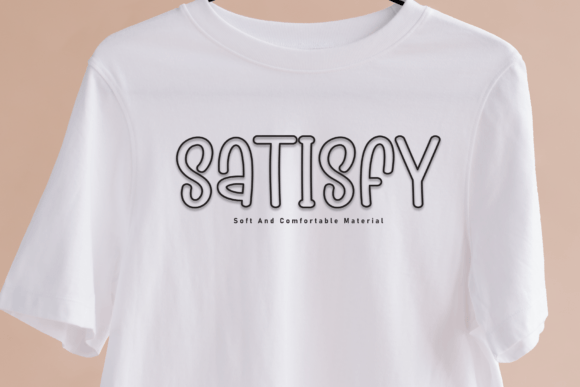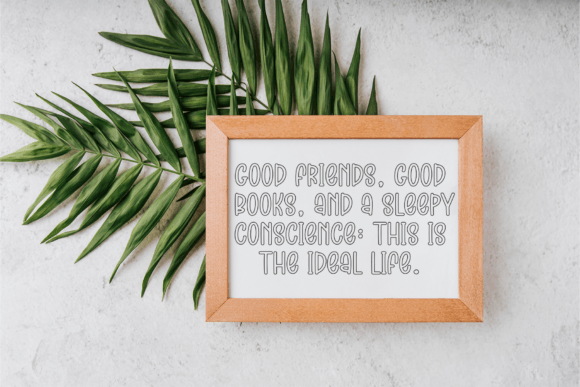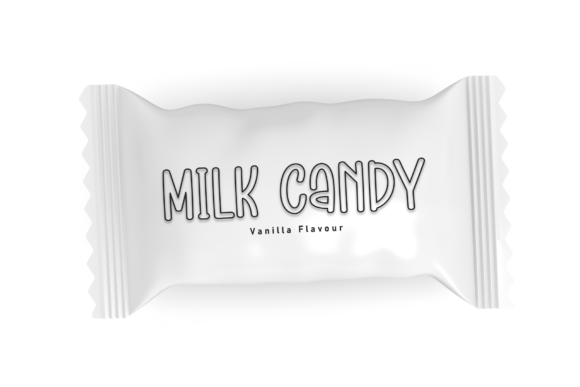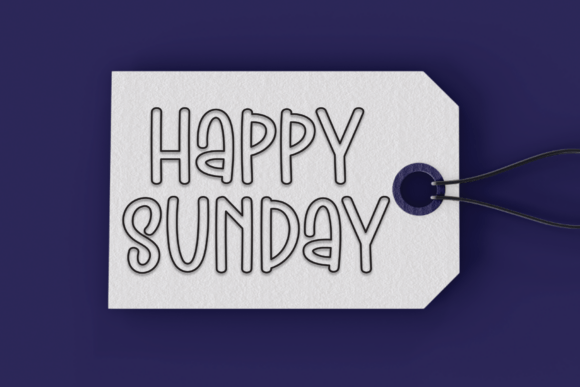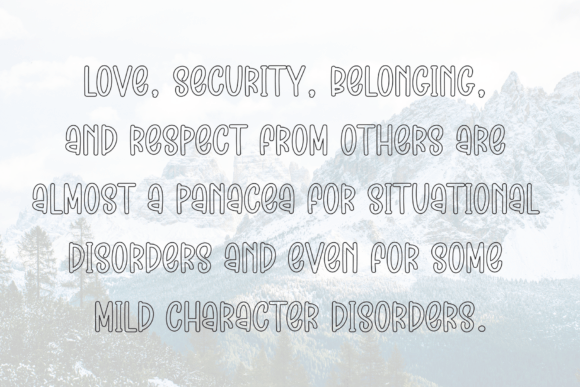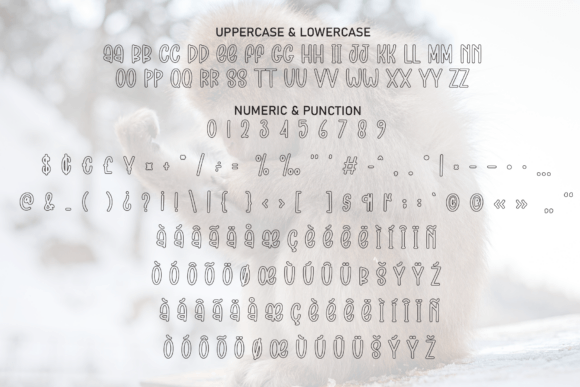
Introducing Chunky Monkey Font: The Playful and Charming Handwritten Display Font
Are you tired of using the same old fonts for your design projects? Look no further! We’re excited to introduce Chunky Monkey Font, a charming and warm handwritten display font that’s sure to add a personal touch to your creations. With its adorable and playful flare, this font is perfect for crafting elegant wedding invitations, heartfelt cards, or any design project that requires a sprinkle of fun.
A Font that Speaks to Your Creative Side
Chunky Monkey Font is designed to bring a sense of joy and lightheartedness to your designs. Each stroke is carefully crafted to provide a playful charm that’s sure to transform your design into a piece of art. Whether you’re a designer, crafter, or DIY enthusiast, this font is perfect for those seeking an element of fun in their designs.
Chunky Monkey Font is a versatile font that can be used for a wide range of design projects, including:
- Elegant wedding invitations and save-the-date cards
- Heartfelt birthday and holiday cards
- Fun and playful party invitations and decorations
- Quirky and charming branding and packaging designs
- Delightful DIY projects, such as scrapbooking and journaling
What Sets Chunky Monkey Font Apart
So, what makes Chunky Monkey Font so special? Here are just a few features that set it apart:
- Handwritten with love: Each letter is carefully handwritten to provide a personal touch that’s hard to replicate with digital fonts.
- Playful and charming: The font’s playful charm is sure to add a sprinkle of fun to your designs.
- Versatile: Chunky Monkey Font can be used for a wide range of design projects, from elegant wedding invitations to playful party decorations.
Tips for Using Chunky Monkey Font
Here are a few tips for getting the most out of Chunky Monkey Font:
- Use it as a headline font: Chunky Monkey Font is perfect for headlines and titles, where its playful charm can really shine.
- Pair it with other fonts: Try pairing Chunky Monkey Font with other fonts, such as serif or script fonts, to create a unique and interesting contrast.
- Experiment with colors: Don’t be afraid to experiment with different colors and textures to add depth and interest to your designs.
Whether you’re a seasoned designer or a DIY enthusiast, Chunky Monkey Font is sure to bring a smile to your face and a touch of personality to your designs. So go ahead, get creative, and have fun with Chunky Monkey Font!